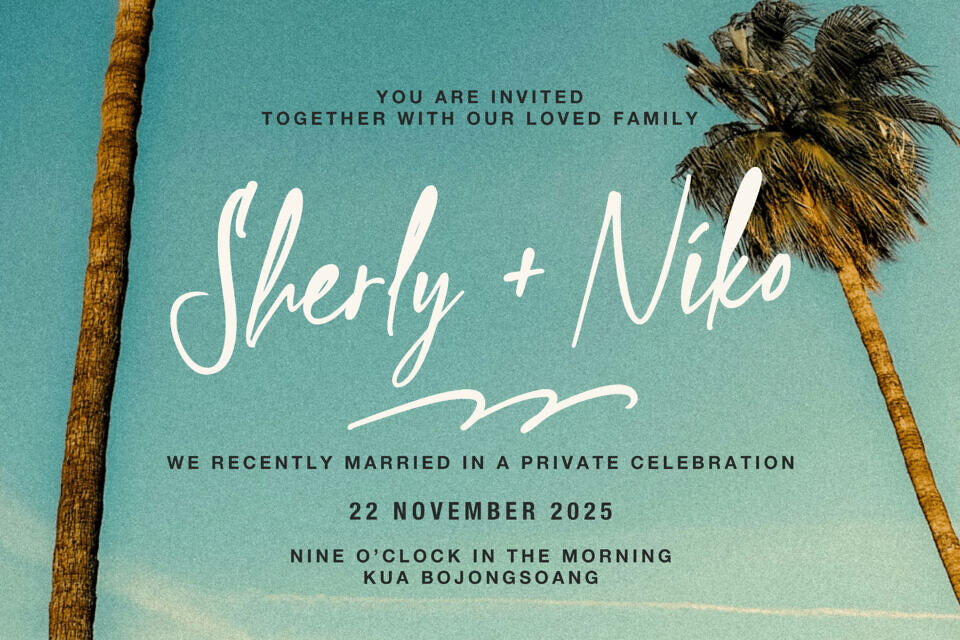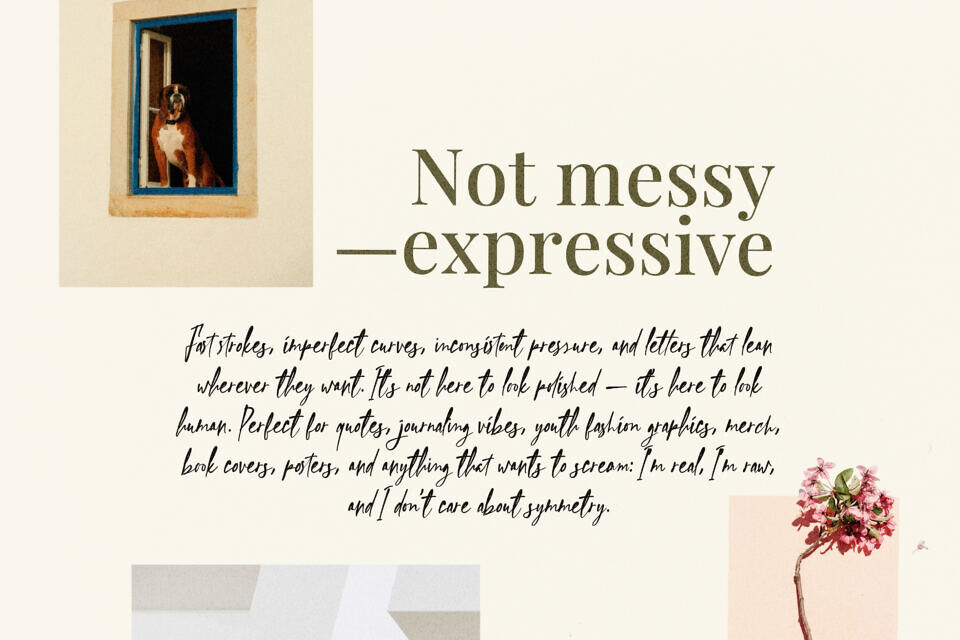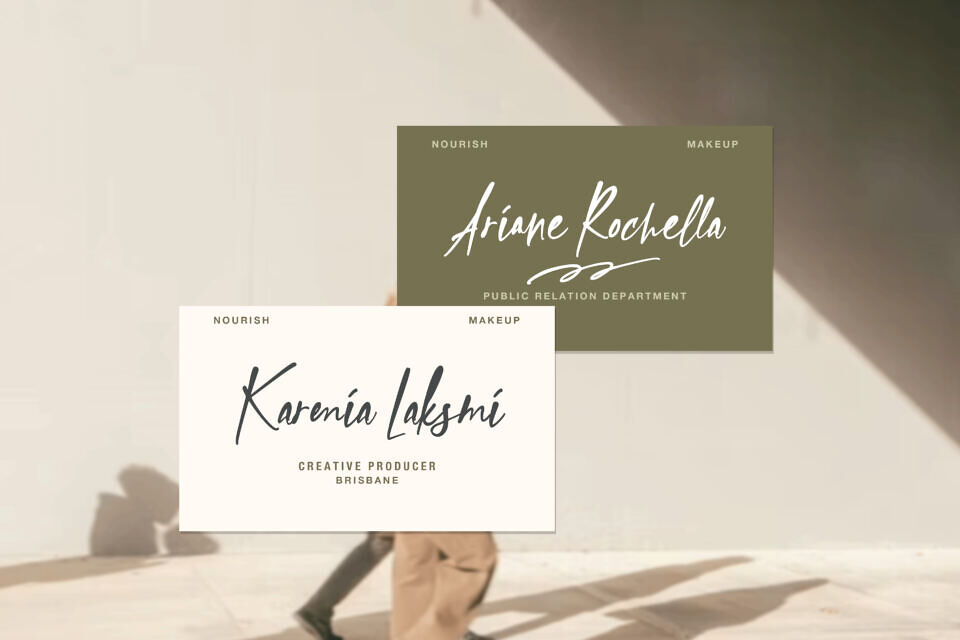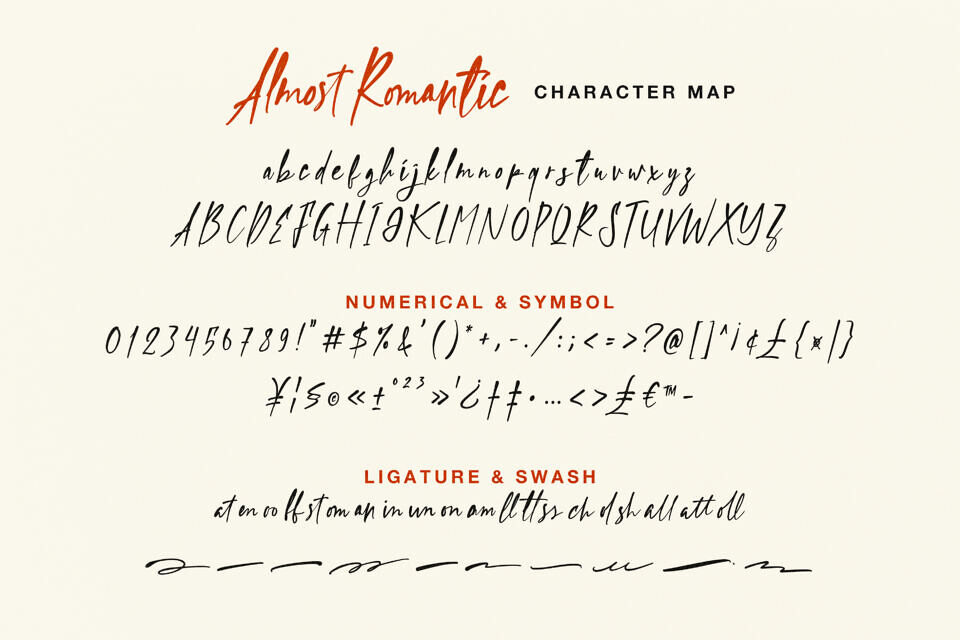
Almost Romantic Font
Capture the essence of spontaneous emotion and heartfelt elegance with the Almost Romantic Handwritten Font. This is a beautifully raw and high-contrast script typeface that perfectly embodies a moment of passionate, rapid handwriting. Its tall, dramatic letterforms and quick, dry-brush strokes give it an intensely personal and stylishly rugged appeal, creating a signature look that feels both intimate and bold.
Ideal for fashion branding, impactful quotes, wedding photography watermarks, luxury personal stationery, or creating moody, high-end social media visuals, the Almost Romantic typeface offers a dynamic and versatile way to communicate with intense emotion and contemporary style, making your design unforgettable.